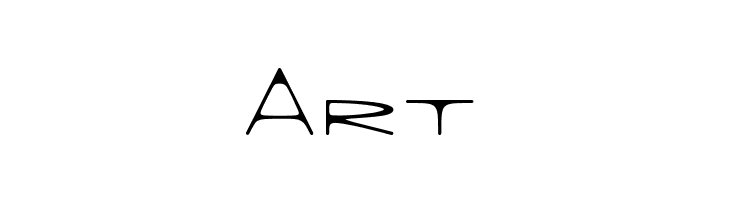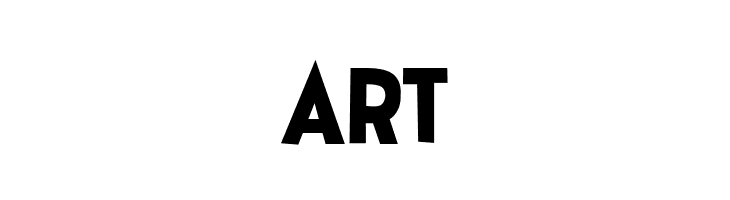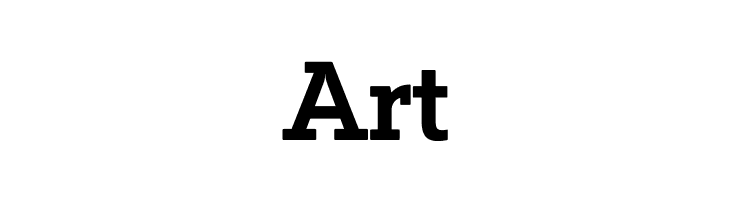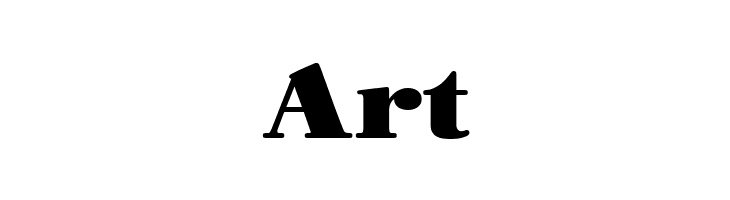
A quirky, artistic font with a modern and playful style.
A bold, condensed font with strong vertical emphasis and minimal spacing.
A bold, ultra-black oblique font with strong, dynamic strokes.
A bold, modern font with strong lines and a professional appearance.
A bold slab serif font with strong serifs and a modern yet timeless appeal.
A bold, high-contrast serif font with strong, elegant strokes.
A bold, italic serif font with strong strokes and a dynamic slant.